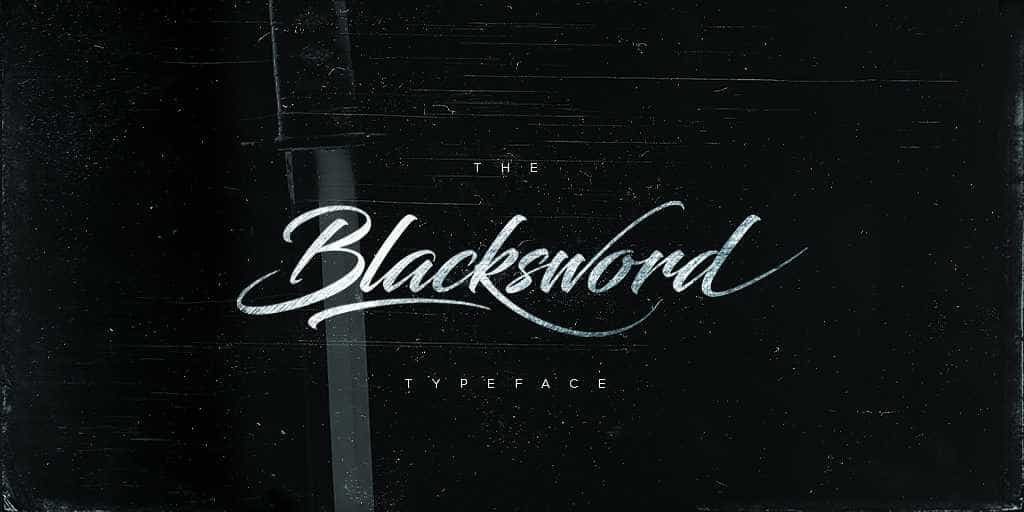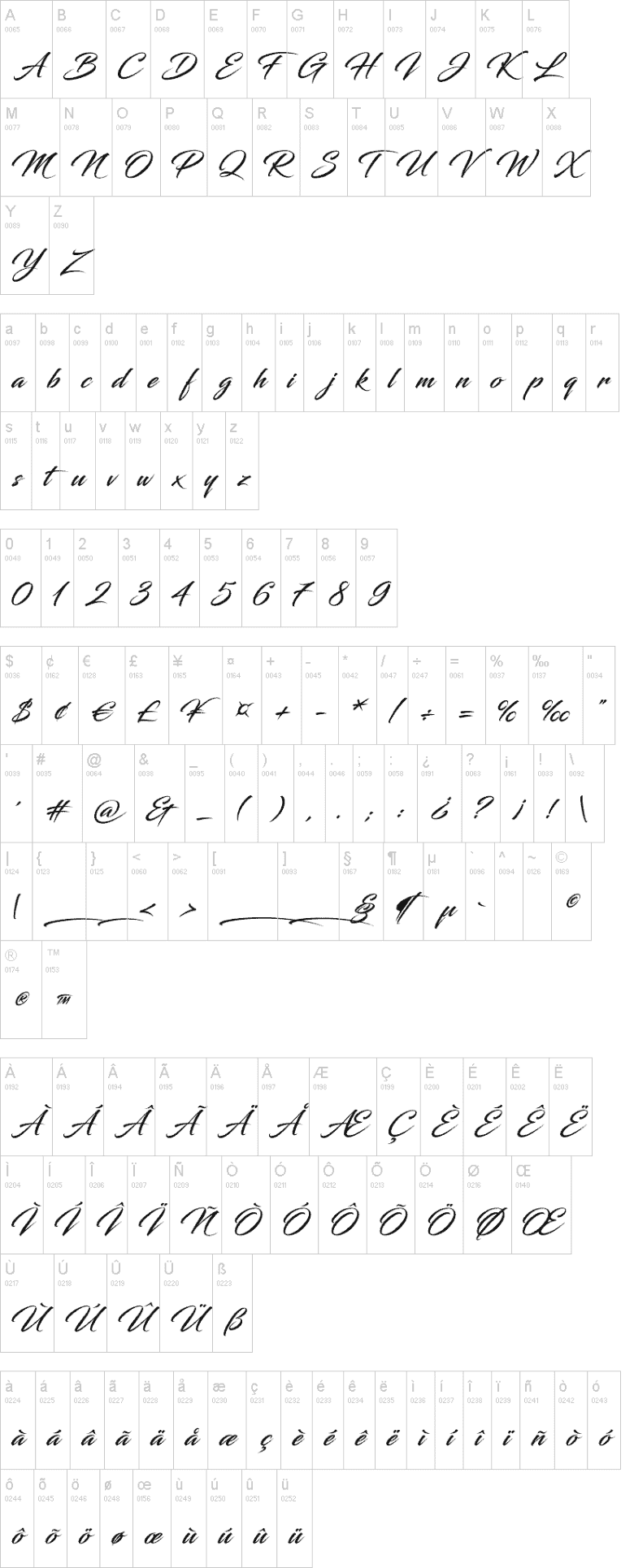
Blacksword: developed by Youssef Habchi, an elegant and luxurious Calligraphy font that can be used for private purposes, free of charge and download. In the free version, the numbers are capital and are also the double of the unique characters numbers.